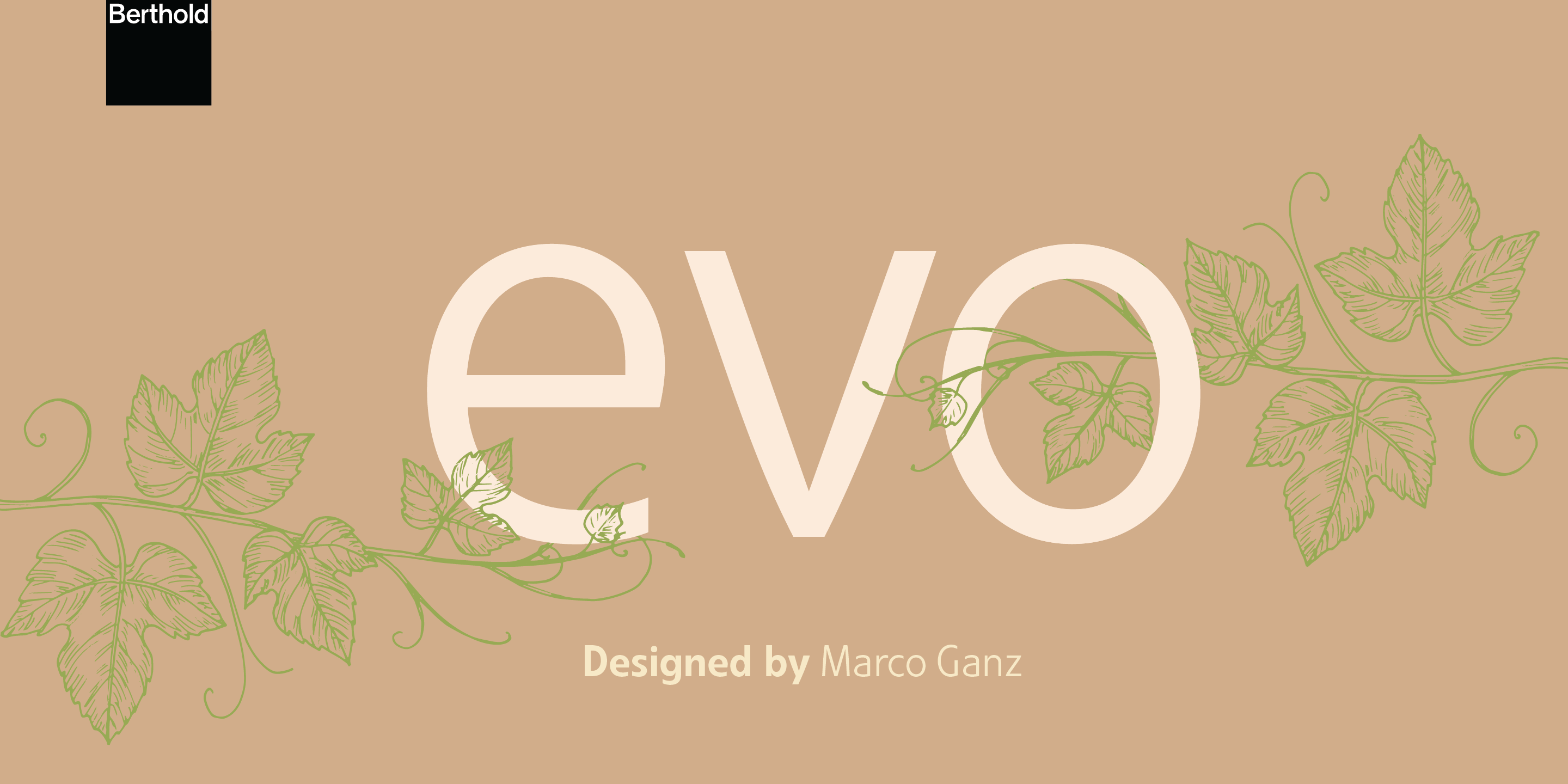
Evo Font is perfect for evolutionary biology publications, scientific research presentations, biotechnology branding, innovation conferences, progressive tech companies, and forward-thinking educational materials. Its adaptive character makes it ideal for research institutions, pharmaceutical companies, genetic laboratories, evolutionary science museums, and any application requiring dynamic typography that conveys scientific progress, biological adaptation, and evolutionary advancement.
Evo Font is exciting because it embodies the principles of evolution and adaptation through intelligently designed letterforms that reflect natural selection and progressive refinement. Its sophisticated structure and adaptive proportions mirror the elegant efficiency found in evolutionary processes, making it perfect for organizations at the forefront of scientific discovery and technological advancement. The font's evolutionary character symbolizes continuous improvement and natural progression toward optimal design solutions.
Evo Font family includes scientifically-refined weight variations typically featuring Light, Regular, Medium, Semibold, and Bold options with adaptive italic styles that demonstrate evolutionary progression. The family often incorporates scientific symbols, mathematical characters, and specialized glyphs designed for research applications, providing designers with comprehensive tools for creating authentic, science-focused typographic communications.
When selecting evolutionary typography solutions, Evo Font Free Download represents an exceptional choice for scientific and progressive design projects. This intelligent typeface brings instant research credibility to any application, making it invaluable for scientific institutions, biotechnology firms, and educational organizations specializing in evolutionary sciences. Whether you're developing research publications, creating scientific conference materials, or designing progressive educational content, Evo Font provides the scientific authenticity and evolutionary sophistication essential for communicating complex scientific concepts in today's rapidly advancing research landscape.